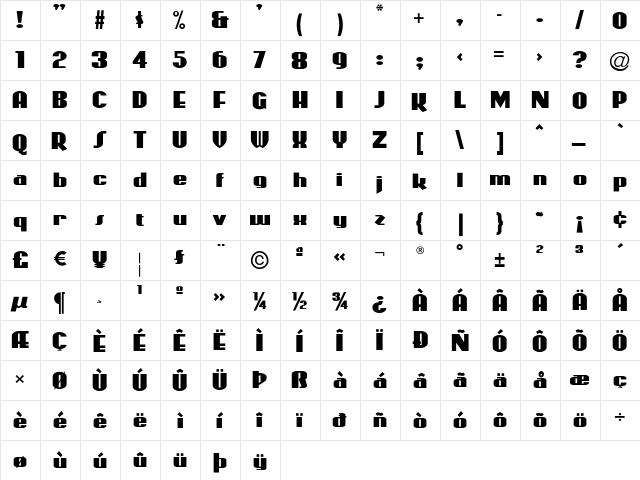
Woody Regular
Design Context for Woody Typeface
Woody taps into classic Western woodtype traditions — bold, characterful, and impossible to ignore.
Perfect for barbecue restaurants, country music branding, vintage poster design, and rustic packaging.
Font Pairing: Combine Woody with a simple slab or neutral sans — period-accurate companions reinforce the vintage feel without competing for attention.
Pro Tip: Pair Woody with aged textures or distressed backgrounds to amplify its vintage personality.